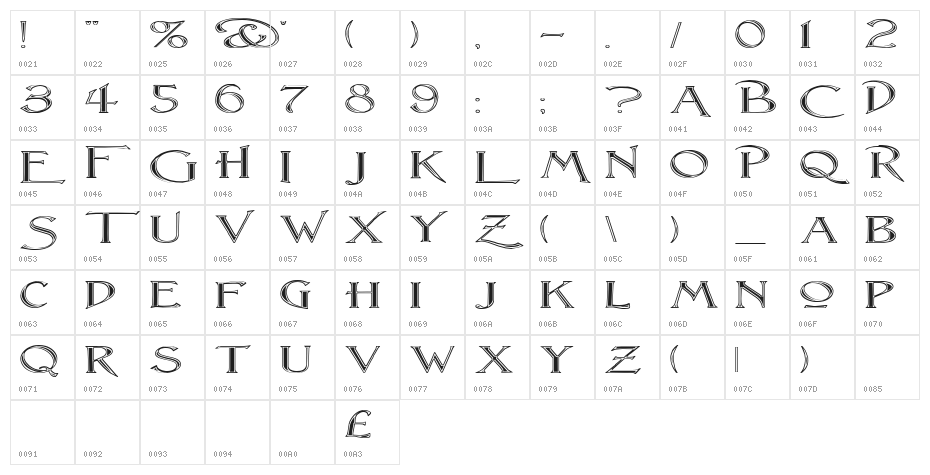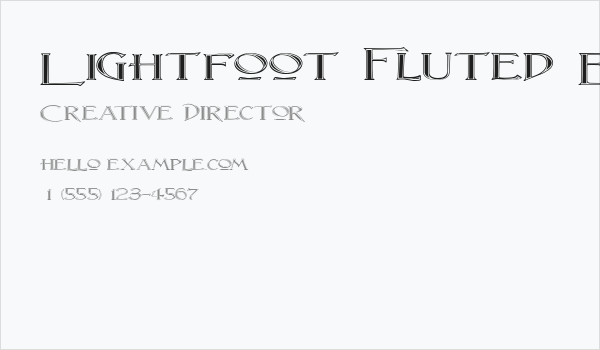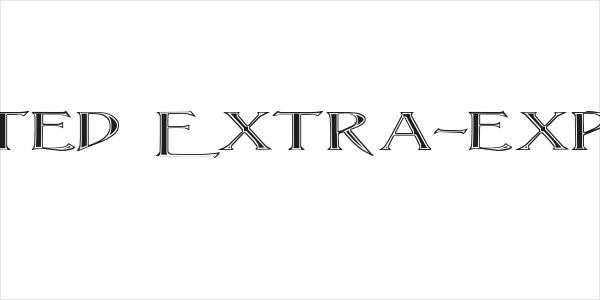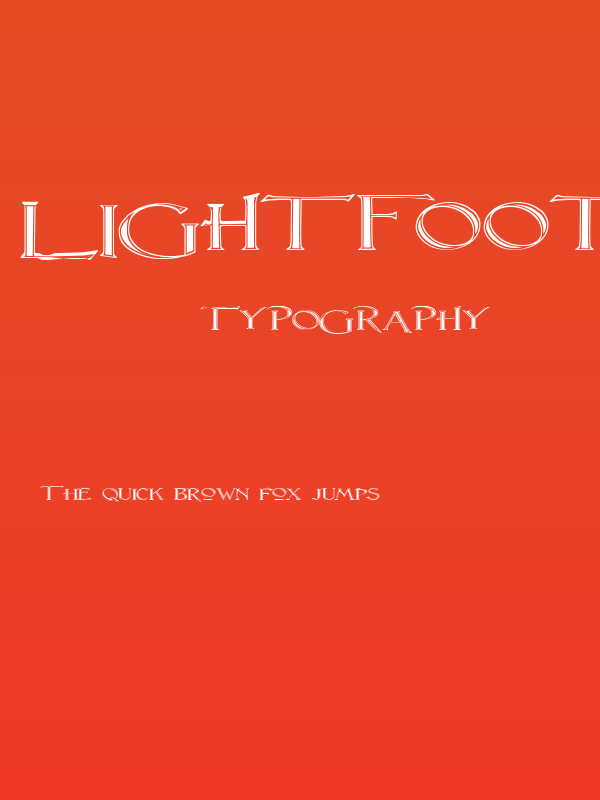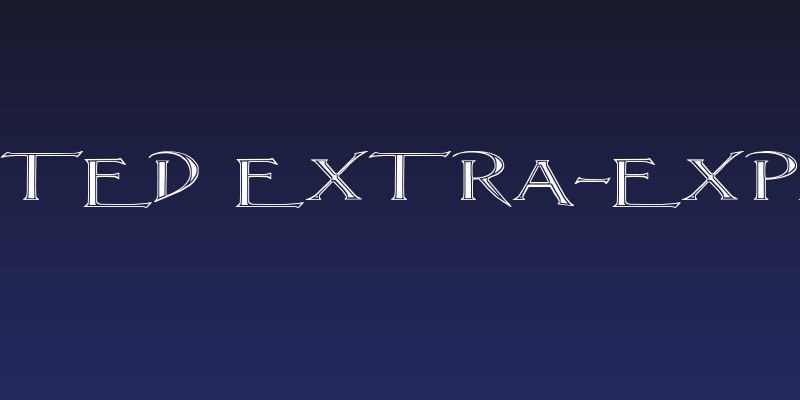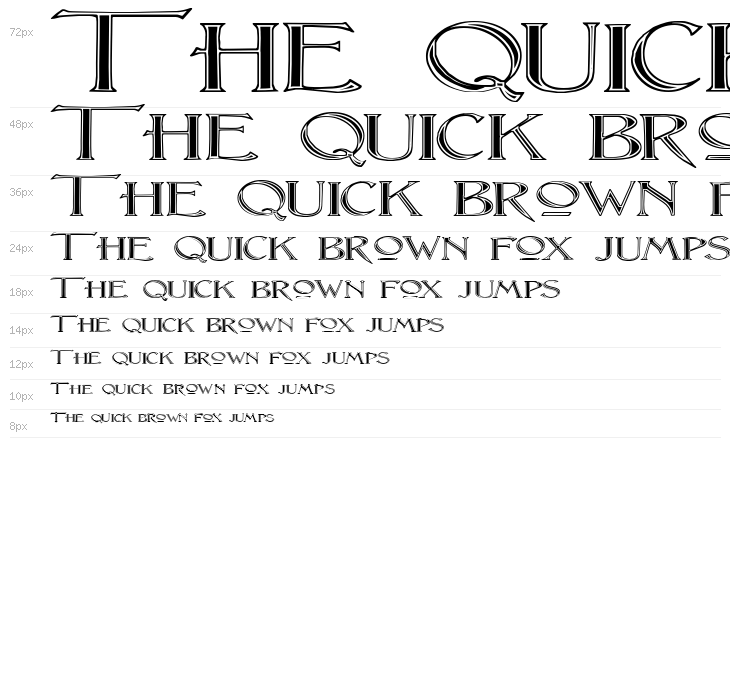
Lightfoot Fluted Extra-expanded Regular Font
Lightfoot Fluted Extra-expanded Regular Description
This font features an elegant and decorative style with fluted, extra-expanded letterforms. The characters exhibit a unique blend of classic and modern elements, with intricate detailing that adds a touch of sophistication. The uppercase and lowercase letters maintain a consistent design, while the numerals and special characters complement the overall aesthetic. The font's expanded width and artistic flair make it ideal for creative and eye-catching designs.
Proposed ProjectsIdeal for luxury branding, wedding invitations, high-end product packaging, and artistic posters.